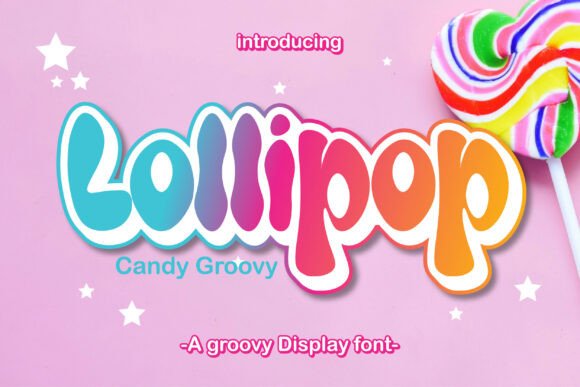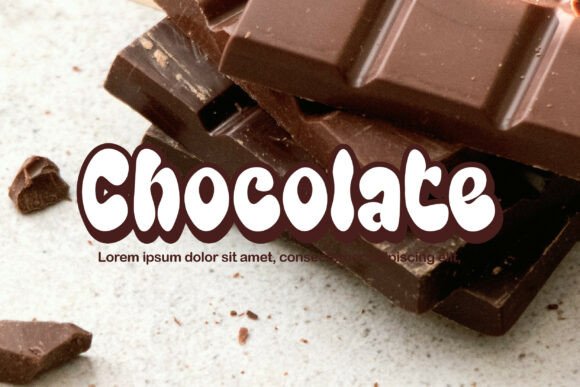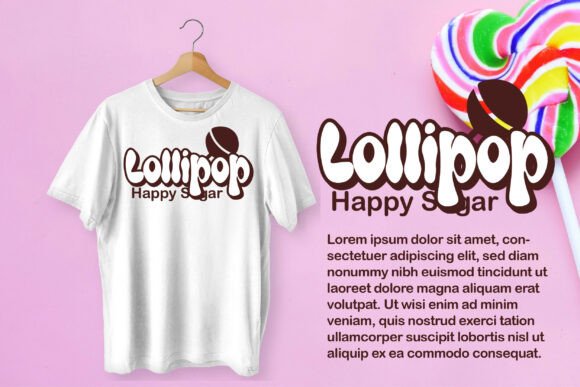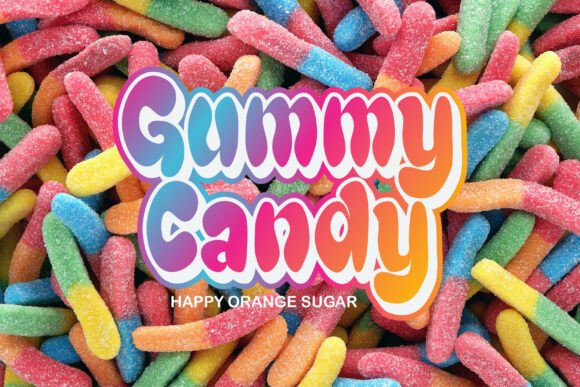
Lollipop Candy Groovy Font
About the Lollipop Candy Groovy Font
Crafted with precision, the Lollipop Candy Groovy Font is ready to bring your ideas to life. Lollipop Candy Groovy is a Unique Font inspired by the delightful world of candy, exuding a charming vintage feel. Enter a sweet world of the past where playful swirls meet bold curves, and a hint of nostalgia lingers in every stroke. Echoing the lively spirit of the retro era,
Lollipop Candy Groovy is an unbeatable choice to infuse a brilliant sense of nostalgia into your designs, posters, or party invitations.
This font’s playful, retro style is ideal for headlines, short text blocks on posters, packaging for confectionery or vintage-inspired products, and branding for businesses with a fun, youthful image. It works particularly well in projects aiming for a nostalgic or whimsical feel. However, its decorative nature makes it unsuitable for body text, long paragraphs, or user interface elements where legibility is paramount.
Lollipop Candy Groovy pairs well with clean sans-serif fonts like Open Sans or Montserrat for a balanced contrast, or with a classic serif like Garamond or Playfair Display to enhance its vintage charm. A simple geometric sans-serif could also provide a modern counterpoint. Avoid pairing it with other highly decorative fonts, which would create visual clutter.
The overall personality of Lollipop Candy Groovy is undeniably cheerful and bold, conveying a sense of fun and retro energy. It’s best suited for brands targeting a younger demographic or those wishing to project a lighthearted, playful image.
Lollipop Candy Groovy Font Usage Examples
Lollipop Candy Groovy Font Example